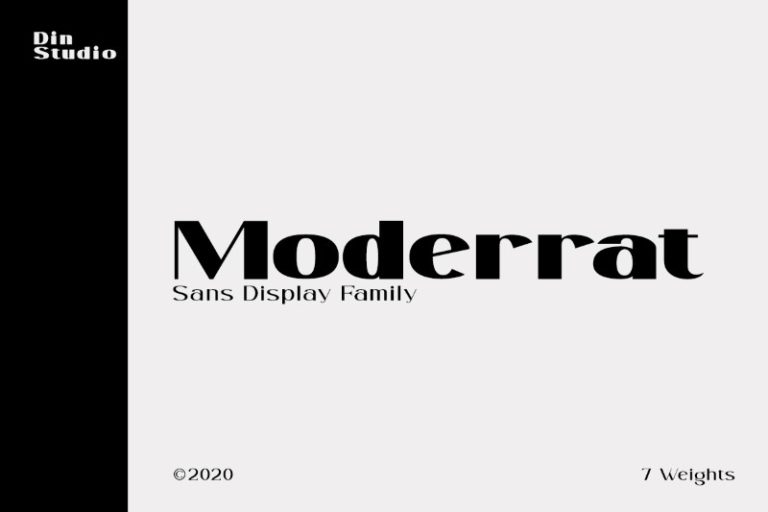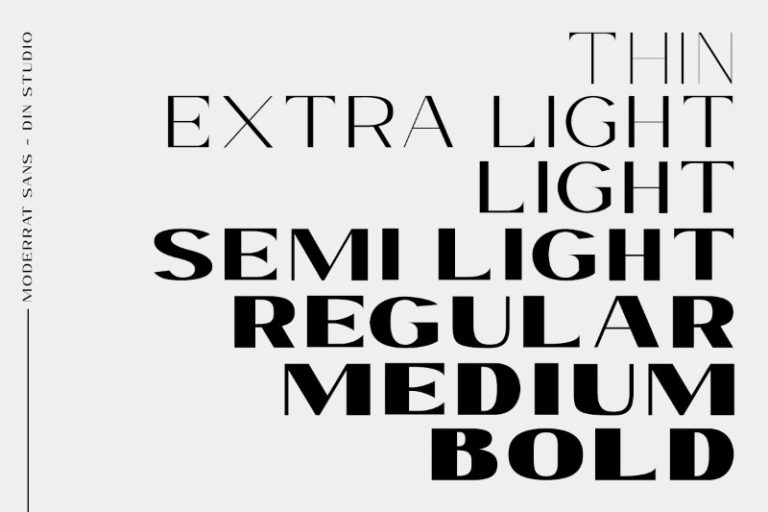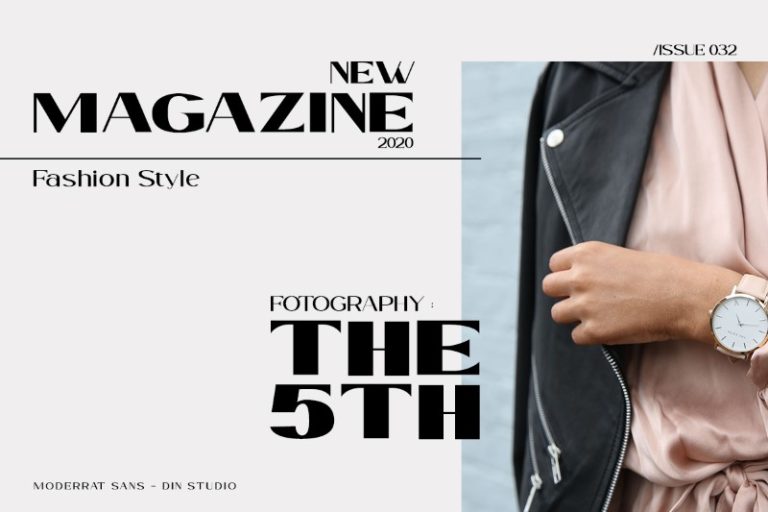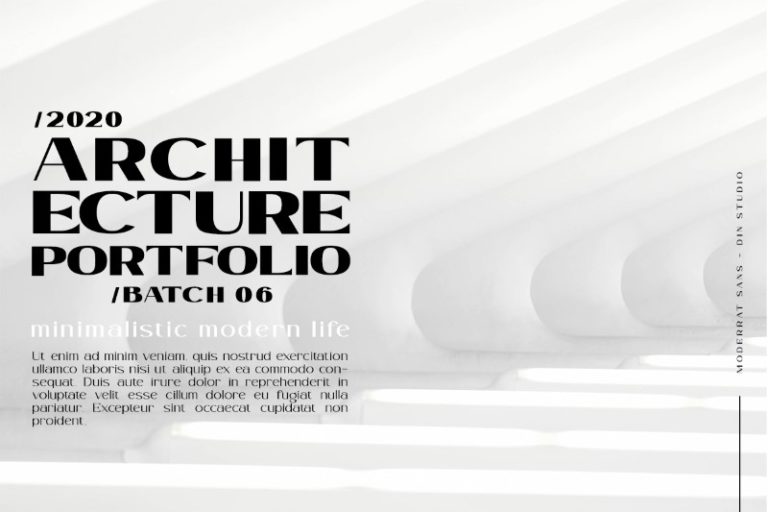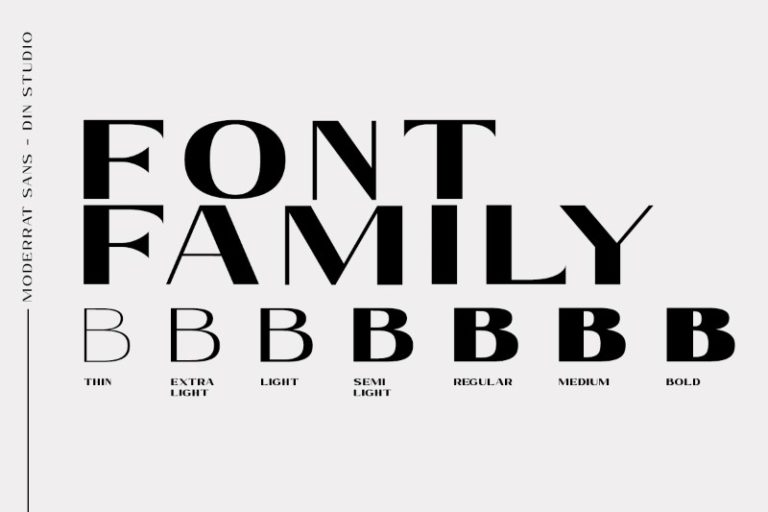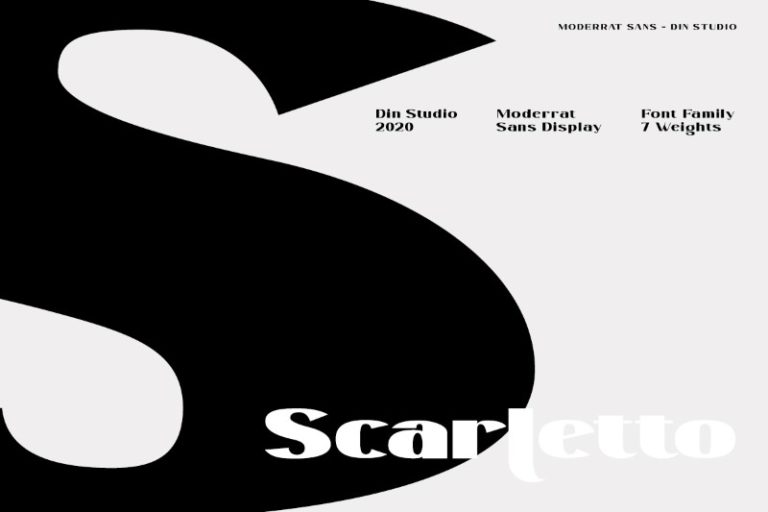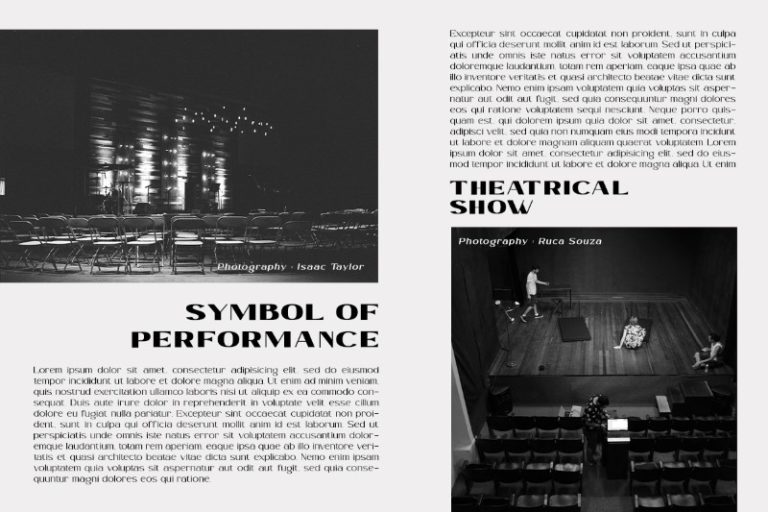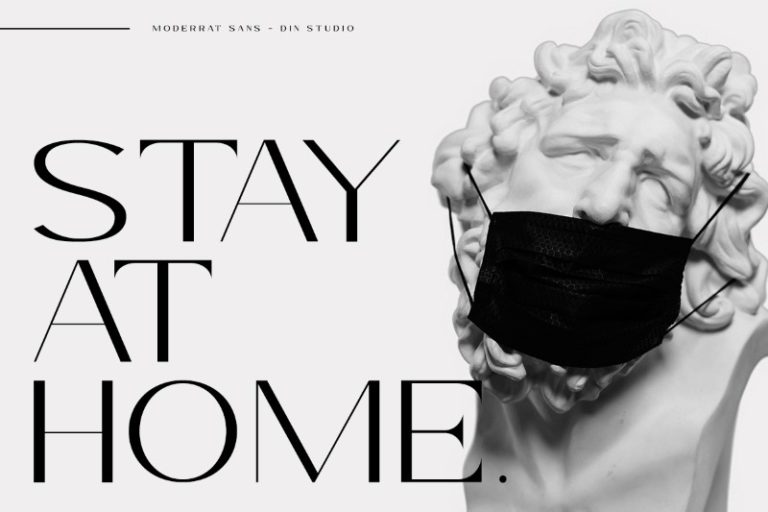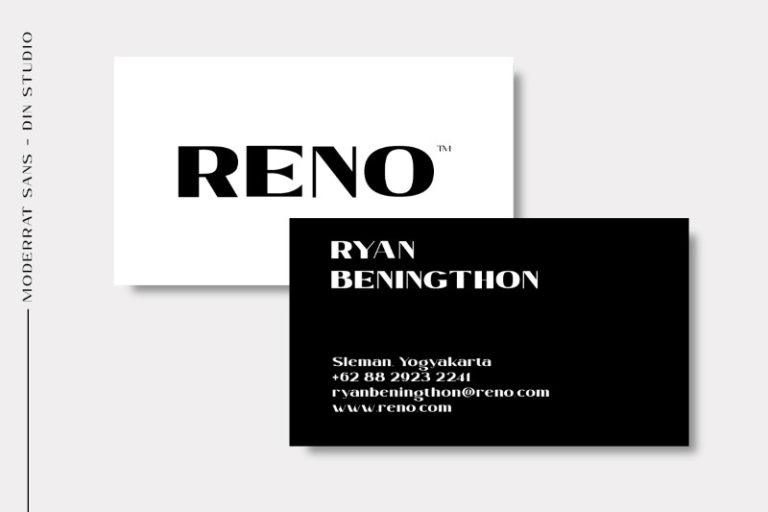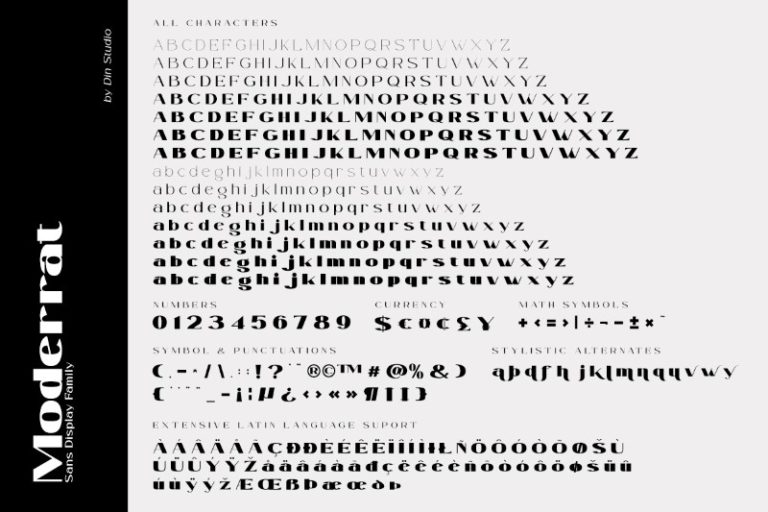
Moderrat – Display Sans Serif Font Family
Moderrat Sans Serif Font Family is created by Din Studio featuring 7 fonts. The modern design of typeface will make your designs more powerful. The font is suitable for any projects, like webs, signages, corporates, as well as for editorial designs and so on. See the previews above to get some inspiration on how you can use them. Enjoy the font!